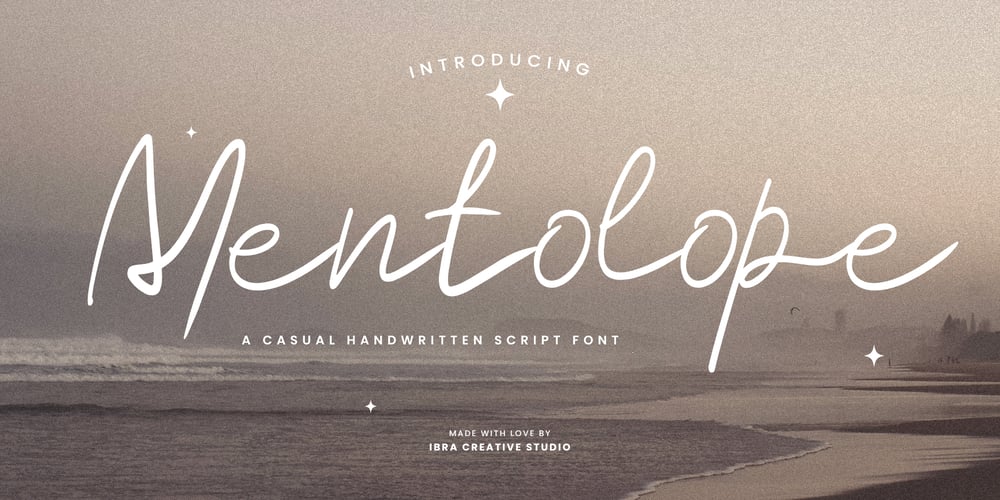
Mentolope Font Family was designed by Roisatul Azizah and published by IbraCreative. Mentolope contains 1 styles and family package options. Mentolope, a casual handwritten script font, embodies an effortless blend of informality and charm, offering a versatile typographic experience. Its fluid strokes and gentle curves give each character a relaxed and organic appearance, reminiscent of handwritten notes shared between friends. Whether used for personal projects, invitations, or informal branding, Mentolope adds a touch of warmth and authenticity to any design. The font’s natural flow and approachable style create a laid-back atmosphere, making it perfect for conveying a sense of friendliness and approachability. With Mentolope, every word becomes a handwritten expression, bringing a personal and welcoming touch to your creative endeavors.Mentolope is perfect for branding projects, logo, wedding designs, social media posts, advertisements, product packaging, product designs, label, photography, watermark, invitation, stationery, game, fashion and any projects.Fonts include multilingual support for; Afrikaans, Albanian, Czech, Danish, Dutch, English, Estonian, Finnish, French, German, Hungarian, Italian, Latvian, Lithuanian, Norwegian, Polish, Portuguese, Slovak, Slovenian, Spanish, Swedish.